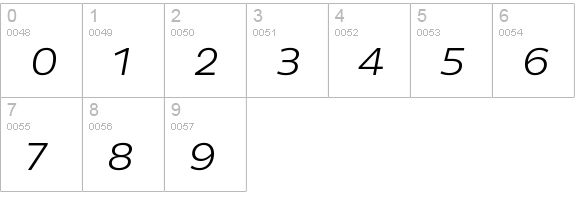
Pluto Sans Light Italic Font Details
Pluto Sans Light Italic is a refined, elegant, italic variant in the Pluto typeface family \xE2\x80\x94 well suited to elegant body text, refined sub-headings, and luxury branding.
Introducing Pluto Sans Light Italic font, a modern and stylish typeface designed to bring elegance and sophistication to your projects. With its sleek and sleek design, this font is perfect for creating a sleek and contemporary look for your designs. The italic style adds a touch of flair and sophistication, making it ideal for adding emphasis to your text. Best of all, Pluto Sans Light Italic font is available for free download at FontsMarket.com. Whether you're working on a branding project, creating a sleek website design, or designing elegant invitations, this font is sure to elevate your work to the next level. Don't miss out on the opportunity to enhance your designs with this beautiful and versatile typeface. Download Pluto Sans Light Italic font today and take your projects to new heights!